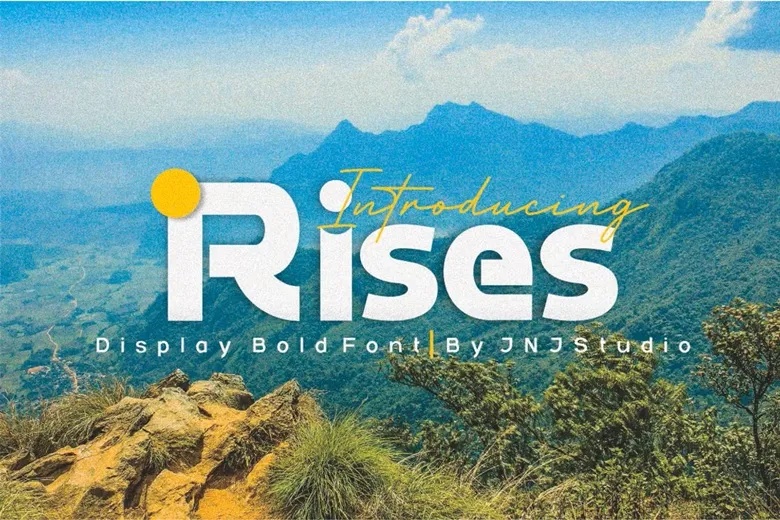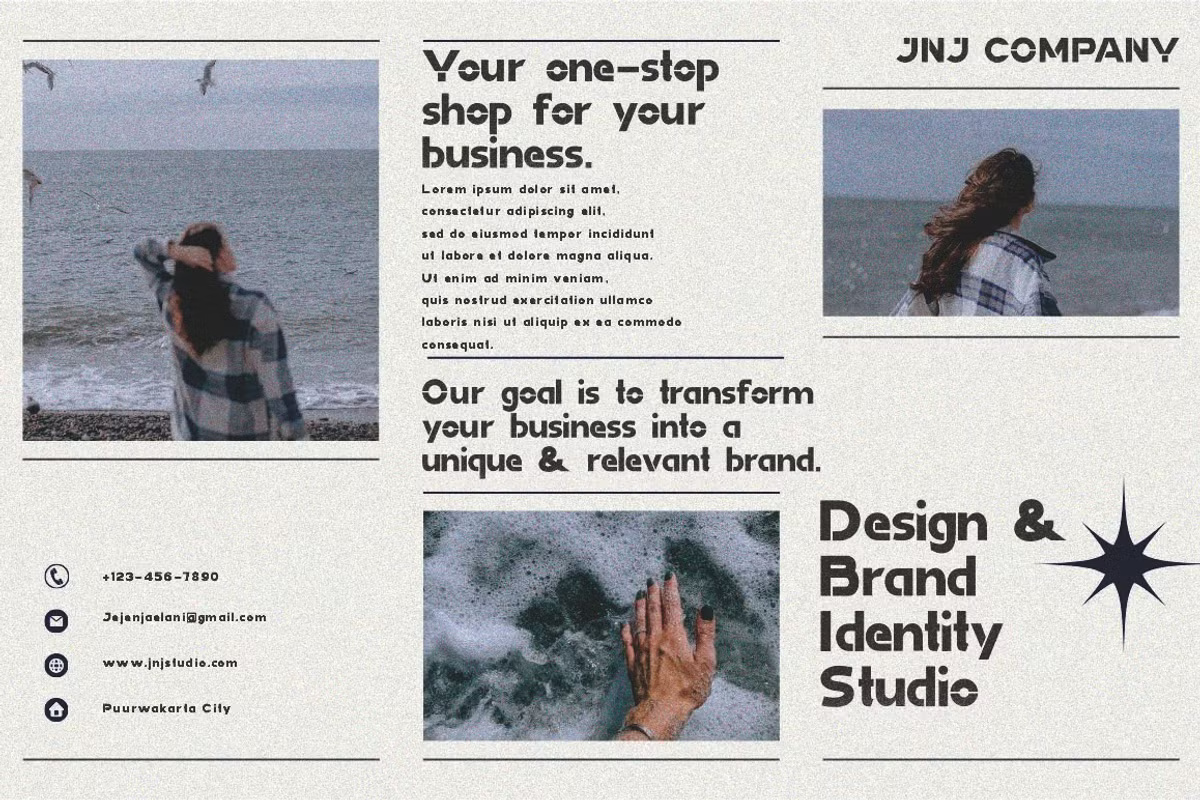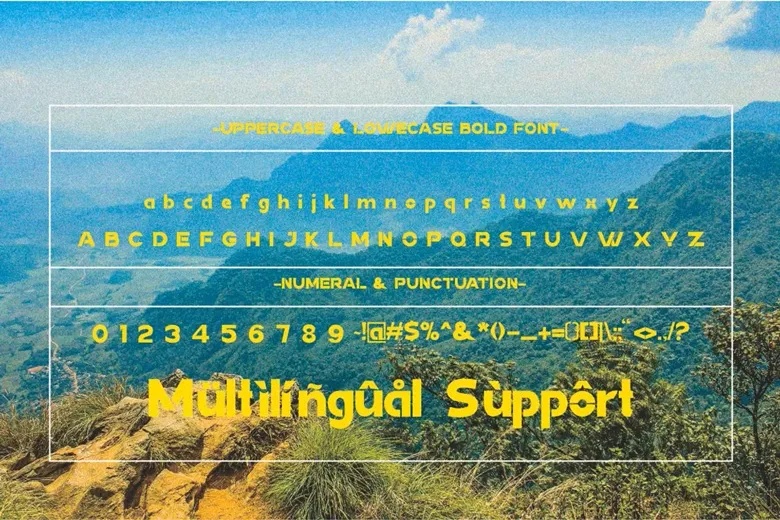
Rises is a modern, bold display font crafted to command attention with every letter. Designed for maximum impact, it features big, bold characters with sharp angles and confident strokes. Perfect for striking headlines, eye-catching posters, standout logos, or bold branding, Rises is built to rise above the rest and make a lasting impression.
Its bold presentation is complemented by clean edges that ensure clarity and legibility, even at large sizes. With its strong, stylish design, Rises is well-suited for futuristic titles and daring visual identities that require a powerful typographic presence.
Rises Display Font